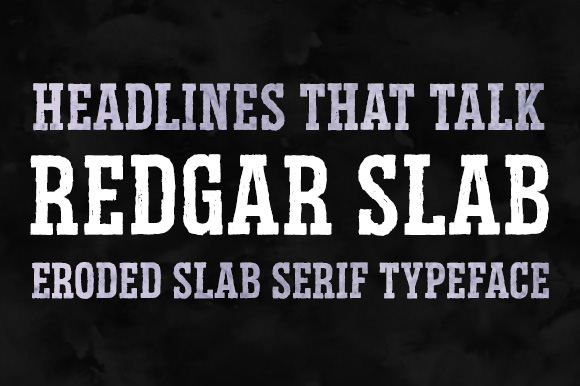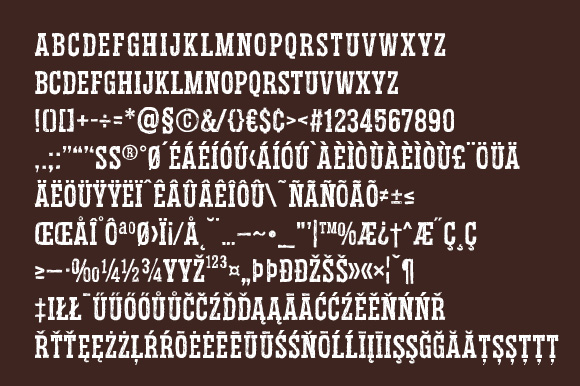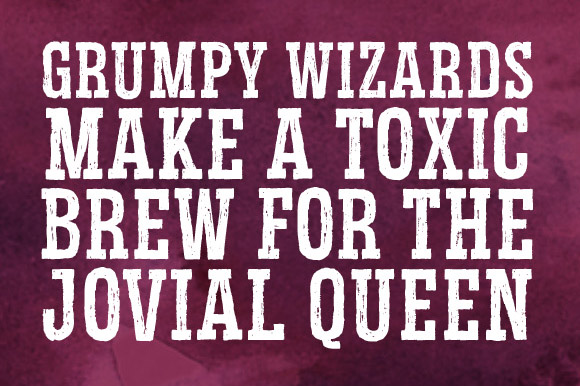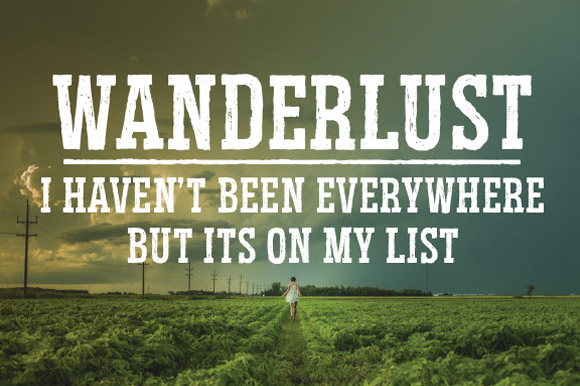
Redgar Slab
Redgar Slab: A Rugged and Weathered Slab Serif Font
Redgar Slab is a distinctive slab serif font that stands out with its eroded, weathered appearance. Created by designer Deepak Dogra, this font brings a unique vintage charm to various design projects.
Key Features of Redgar Slab
• Eroded Texture: Each character features worn edges and weathered textures, evoking a sense of history and authenticity.
• Rugged Aesthetic: The font’s rough appearance adds depth and character to designs.
• Vintage Appeal: Perfect for projects that aim to convey a sense of nostalgia or timelessness.
• Legibility: Despite its weathered look, Redgar Slab maintains readability across various applications.
Ideal Uses for Redgar Slab
Redgar Slab’s unique characteristics make it particularly well-suited for:
• Vintage-inspired branding and packaging
• Poster and advertisement designs
• Editorial layouts seeking a distinctive typographic voice
• Book covers and titles
Comparison with Other Slab Serif Fonts
While Redgar Slab shares the bold characteristics of other slab serifs like Tecnica Slab Family, its weathered texture sets it apart. Unlike more traditional slab serifs such as Osgood Slab, Redgar Slab offers a more rugged and artistic approach to typography.
When incorporating Redgar Slab into your designs, consider the following tips:
• Use it for headlines or short blocks of text to maximize its visual impact
• Pair with cleaner, modern fonts for body text to create contrast
• Consider using it in projects where you want to evoke a sense of history or authenticity
• Experiment with different sizes to showcase the font’s eroded details
Redgar Slab is an excellent choice for designers looking to add a touch of vintage charm and rugged authenticity to their work. Its unique eroded texture and slab serif design make it stand out in the world of typography. Whether you’re working on logo designs, editorial layouts, or creating eye-catching poster designs, Redgar Slab offers the perfect blend of character and readability.
Explore how Redgar Slab can bring a weathered, vintage aesthetic to your design projects. From branding to editorial design, this font provides the tools to create impactful and memorable typography that tells a story through its very appearance.